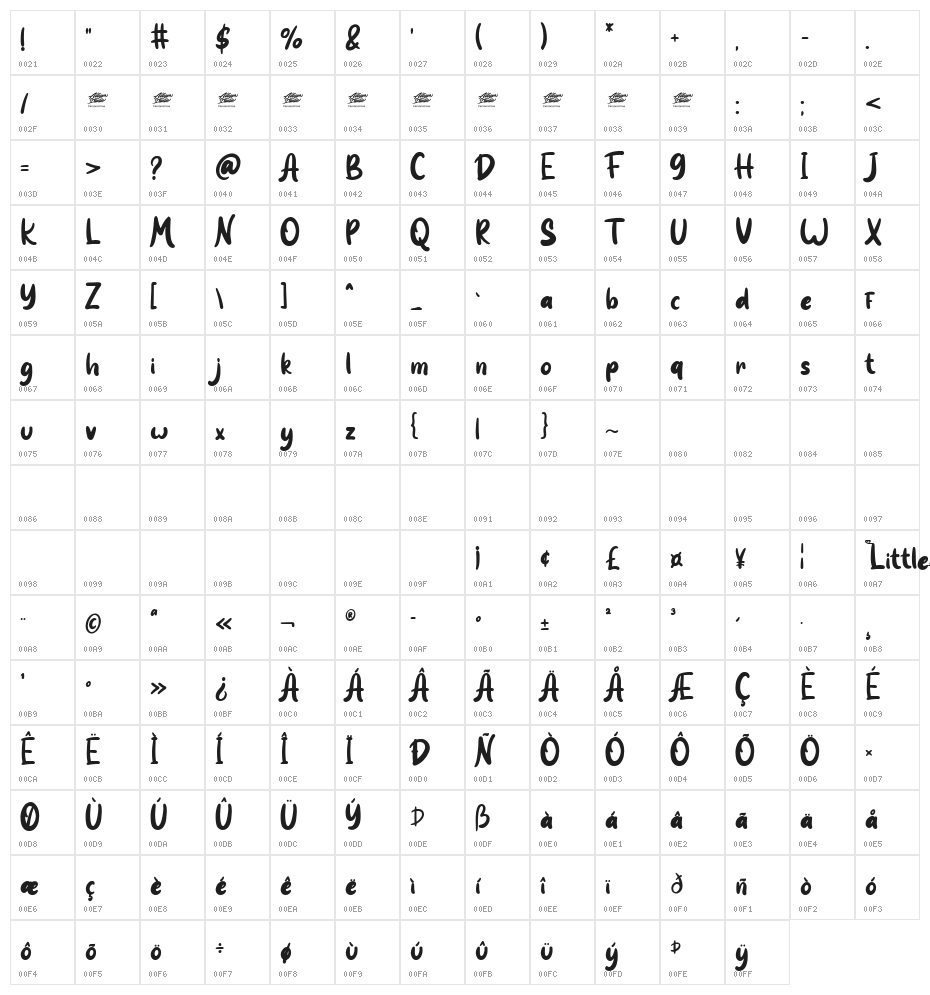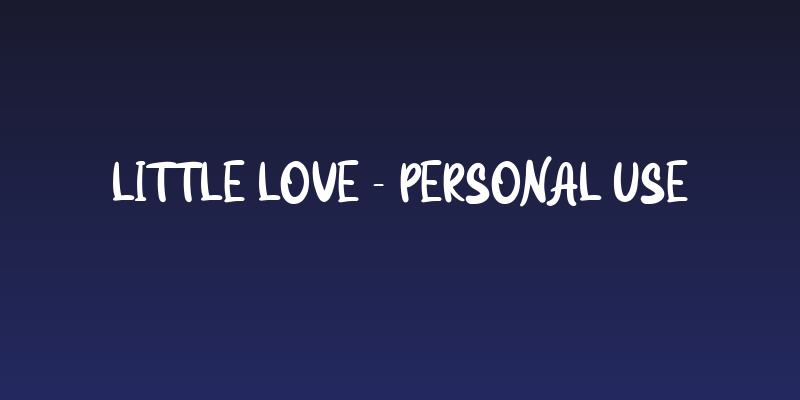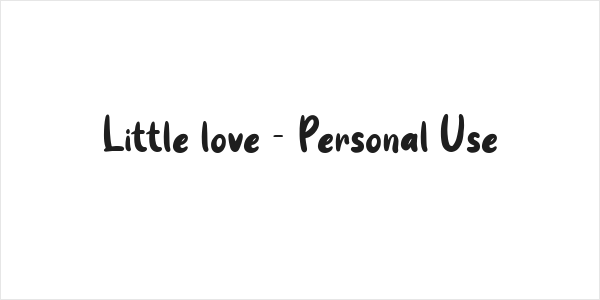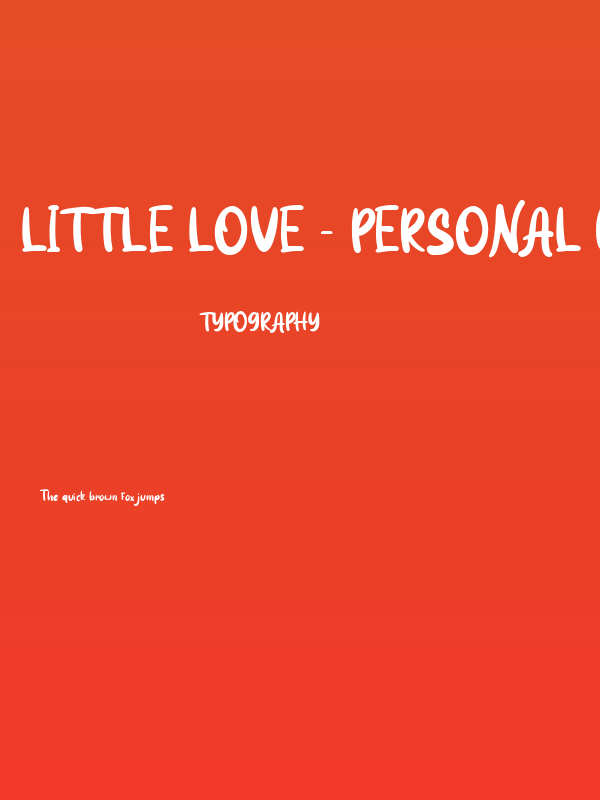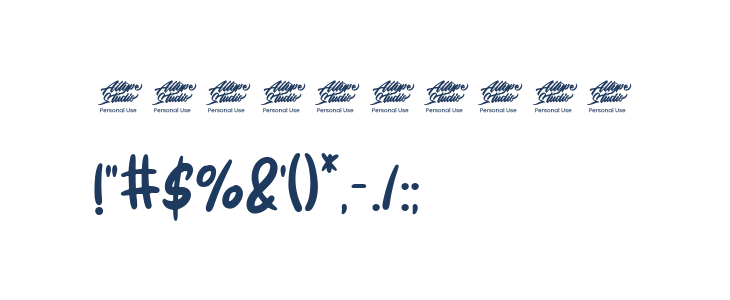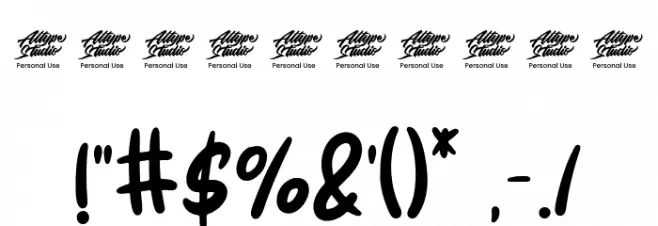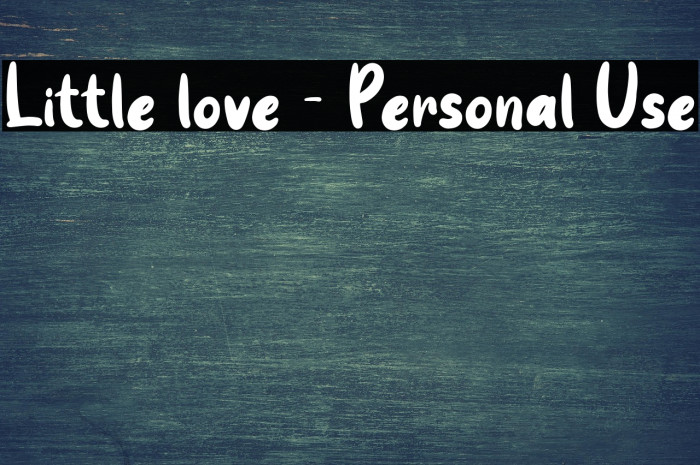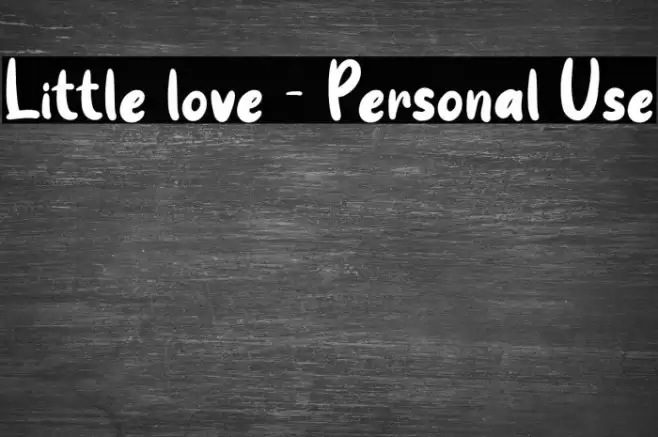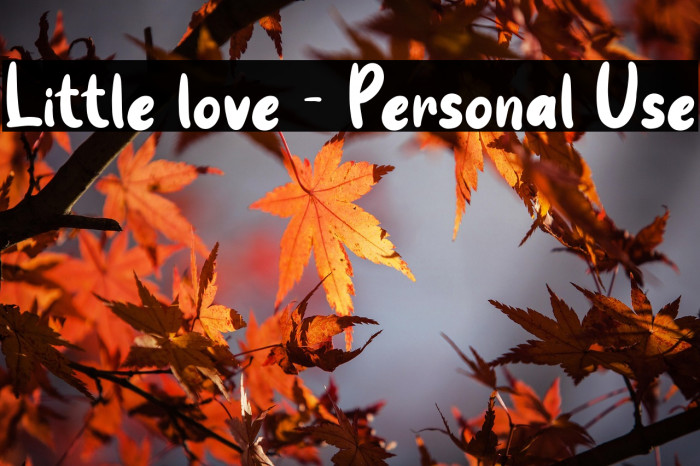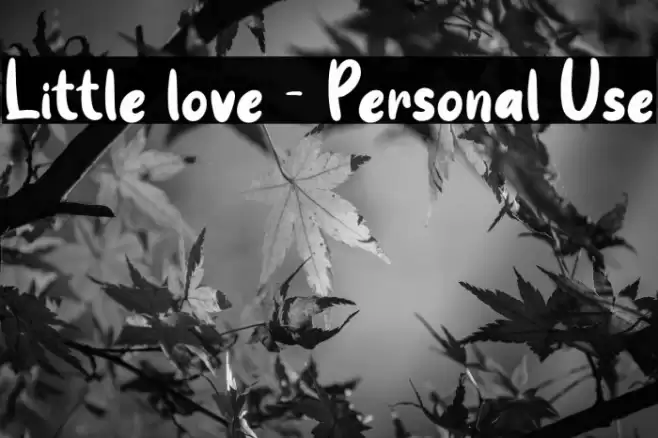
Little love - Personal Use Font
Little love - Personal Use Description
This font features a playful and whimsical style with a handwritten appearance. The letters are bold and rounded, giving them a friendly and approachable look. The uppercase and lowercase letters maintain a consistent flow, with slight variations that add to the casual charm. The numerals and special characters follow the same playful design, making the font versatile for various creative projects. The strokes are thick, providing a strong presence, while the overall design remains light-hearted and fun.
| Use Case | Logos, Headlines, Greeting Cards |
| Proposed Projects | Ideal for greeting cards, children's books, playful branding, and social media graphics. |